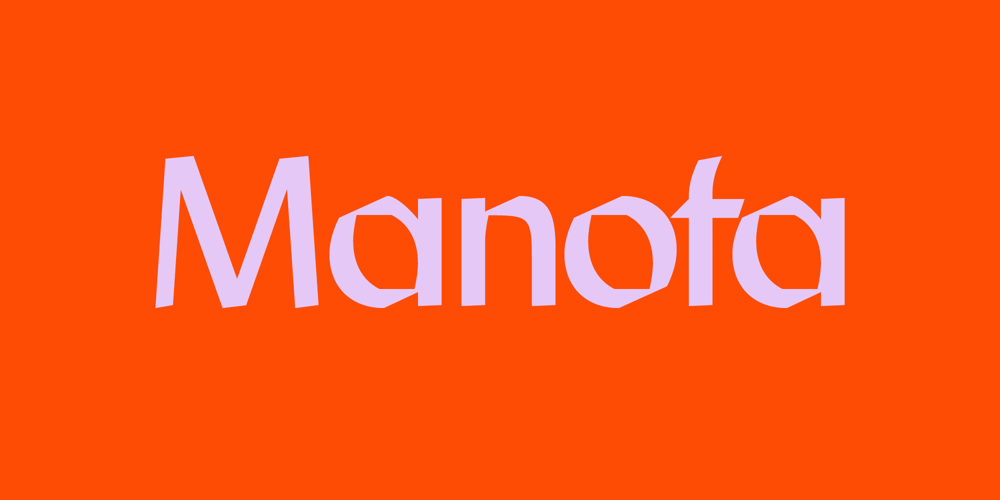
Manofa Font Family was designed by Mariya Lish and published by Inhouse Type. Manofa contains 16 styles and family package options. Manofa is a calligraphic sans-serif typeface. It is inspired by Warren Chappell’s Lydian and originated from the experiments with the shape and form of the letter “O”. The result is a contemporary, sharp and sculptural display. Details include four weights, matching italics, two widths, alternative characters and the OpenType features.